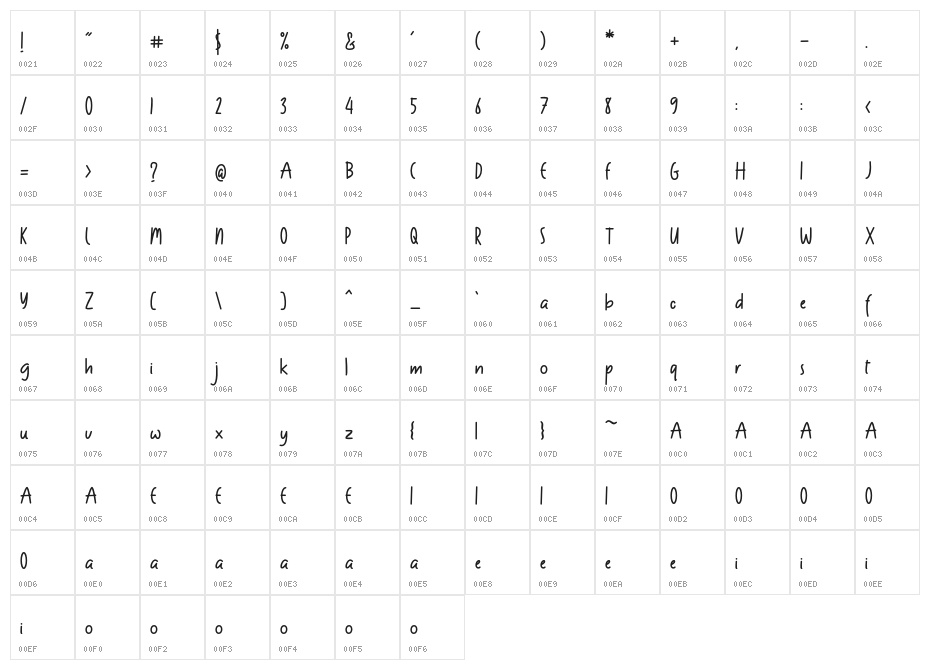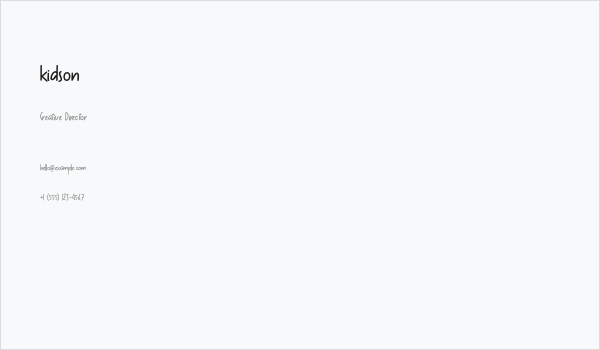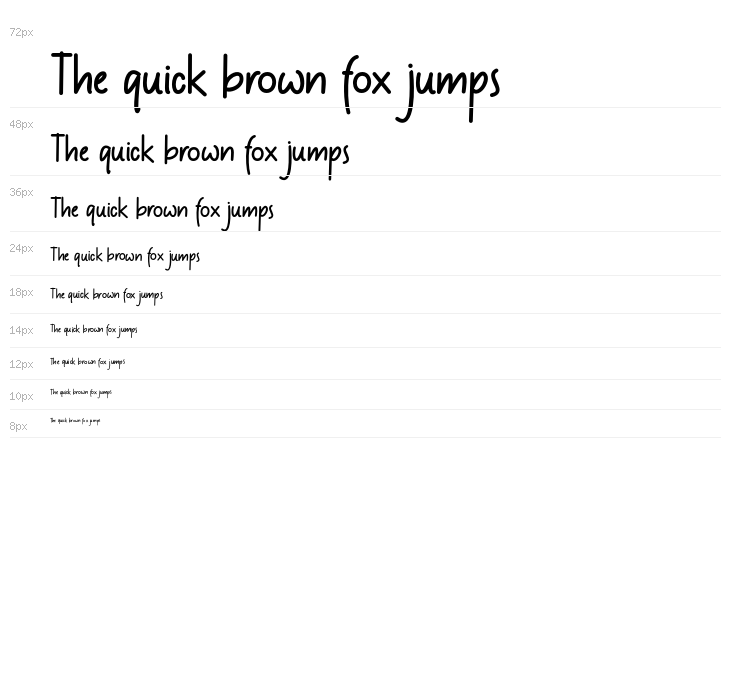
kidson Font
kidson Description
This playful and whimsical font features a handwritten style with smooth, flowing curves and a casual appearance. The letters are slightly irregular, giving it a friendly and approachable feel. The uppercase characters are bold and slightly taller than the lowercase, which are more rounded and compact. Numbers and special characters maintain the same playful aesthetic, making it versatile for various uses. The font's overall look is informal and fun, perfect for projects that require a personal touch.
| Overall Style | Playful |
| Use Case | Headlines, Logos, Casual Text |
| Proposed Projects | Ideal for children's books, greeting cards, playful branding, and casual invitations. |